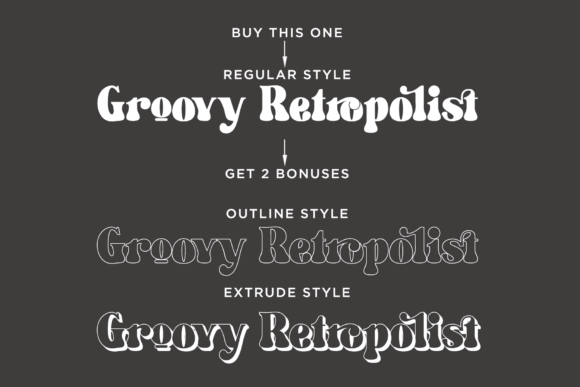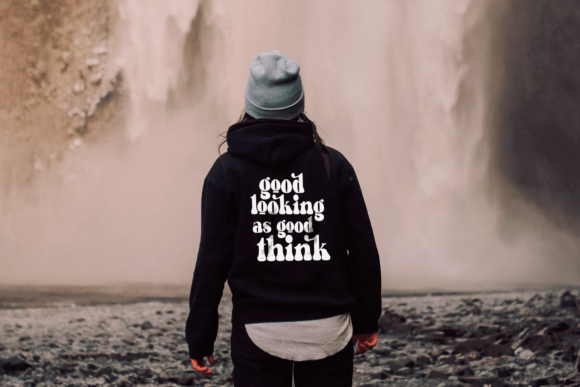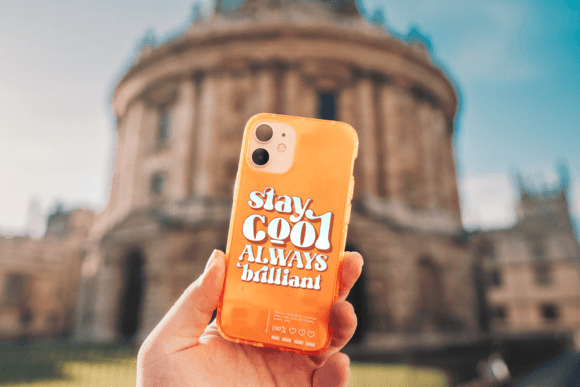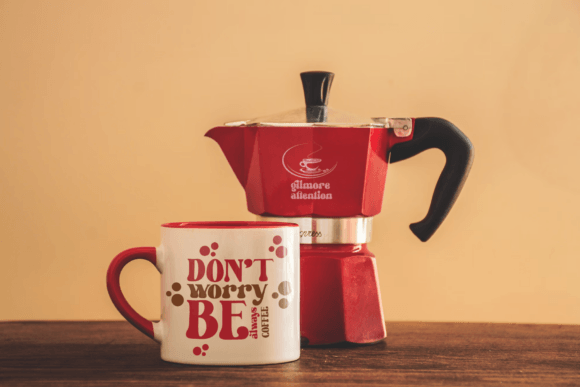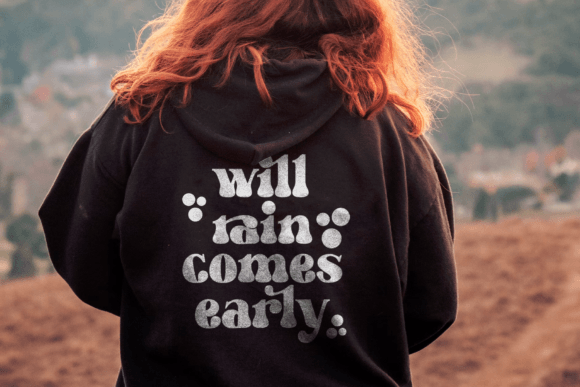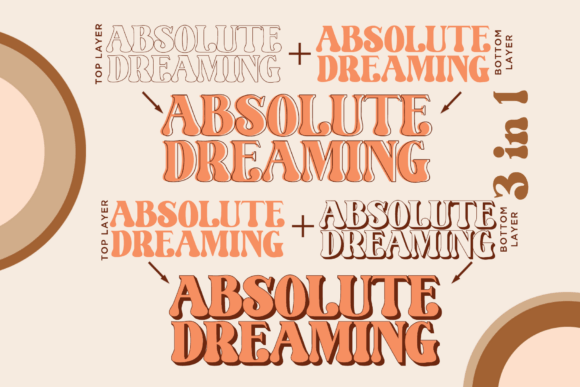
Get Ready to Groove with Your Designs
Have you ever stumbled upon an old vinyl record or a vintage poster and felt the urge to create something just as groovy? That spark of inspiration is exactly what the Groovy Retropolist Font is all about – capturing the essence of a bygone era and bringing it to life in a modern design.
Absonstype’s Groovy Retropolist Font is more than just a font – it’s a creative companion that empowers designers to craft unique and eye-catching visuals. With three distinct styles to choose from, Regular, Outline, and Extrude, you can experiment with different looks and feels to match your design’s vibe. Whether you’re working on a retro-themed project or simply want to add a touch of nostalgia to your branding, Groovy Retropolist Font has got you covered.
So why settle for a generic font when you can have a design chameleon that adapts to any platform? From t-shirts to stickers, and from social media to magazine covers, Groovy Retropolist Font is your ticket to creating decadent results that will leave a lasting impression.
Groovy Retropolist Font Key Features
- Font Family: Groovy Retropolist
- Character Set: Supports a wide range of characters, including Latin, Cyrillic, and Greek alphabets, as well as various punctuation marks and symbols.
- Unique Characteristics: Features a distinctive retro aesthetic with a mix of vintage and futuristic elements, making it perfect for designs that require a unique blend of old and new styles.
Designer Review: Groovy Retropolist Font
I recently had the chance to work with the Groovy Retropolist Font, and I must say it’s a unique addition to any design project. ✨ Here are some of the things that stood out to me:
- Its retro aesthetic is perfect for creating a nostalgic vibe in designs.
- The font’s groovy feel adds a touch of playfulness and whimsy.
- The font family is well-designed, with a clear hierarchy of weights and styles.
- The font works well for titles, headings, and short blocks of text.
- The font can feel a bit overwhelming if used extensively in a design.
- It may not be the best choice for body text or long blocks of text.
- The font’s uniqueness can be a double-edged sword – while it adds interest, it may also clash with other design elements.
Overall, I think the Groovy Retropolist Font is a great choice for designers looking to add some retro flair to their work. It’s a fun and unique font that can add a lot of personality to a design. Just be mindful of its limitations and use it judiciously to get the most out of it.
To get the most out of the Groovy Retropolist Font, try combining it with other vintage-inspired elements, such as distressed textures and retro colors.
Use the font to add a touch of nostalgia to your designs.
The Groovy Retropolist Font is perfect for:
Creating retro-themed posters and advertisements.
Designing vintage-inspired social media graphics.
Adding a touch of nostalgia to your website or blog.
Alternatives to Groovy Retropolist Font for Designers
Great Vibes is a modern script font that captures the essence of a carefree, 1960s vibe. It’s perfect for designers looking to create a relaxed, beachy feel in their designs. Great Vibes has a more subtle, understated quality compared to Groovy Retropolist Font, making it ideal for projects that require a softer, more delicate approach.
Similarity to Groovy Retropolist Font: 6/10. Great Vibes has a similar retro feel, but with a more refined and modern twist.
Playfair Display is an elegant, high-end font that exudes sophistication and luxury. It’s perfect for designers looking to create a high-end, premium feel in their designs. Playfair Display has a more formal, refined quality compared to Groovy Retropolist Font, making it ideal for projects that require a touch of class and sophistication.